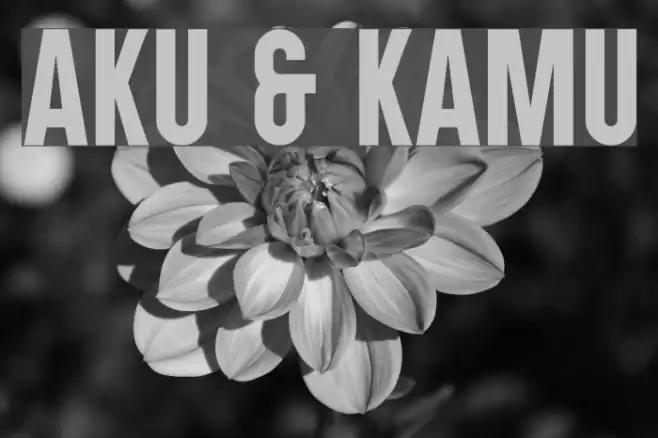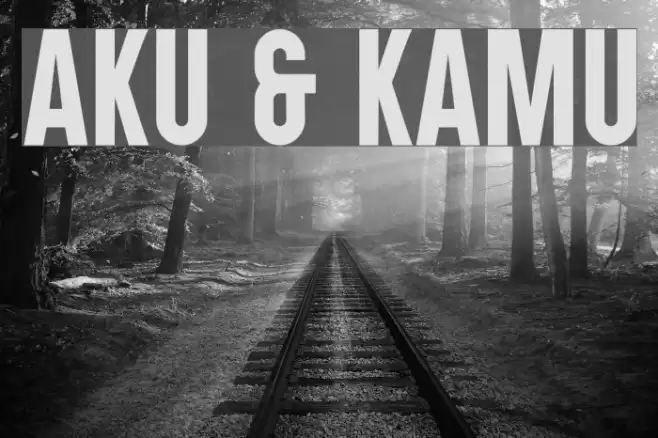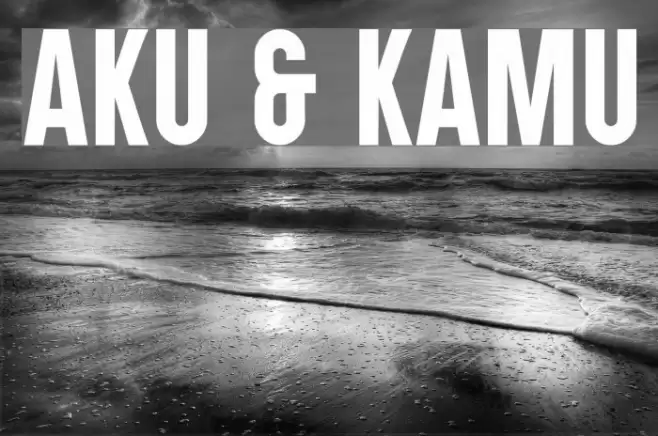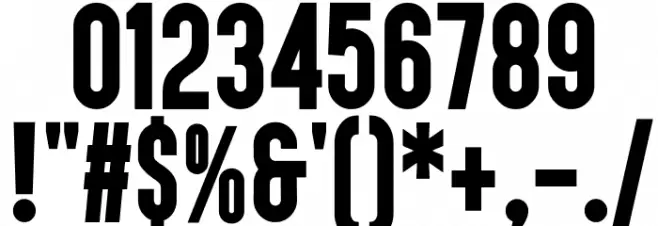
Aku & Kamu Font
Aku & Kamu Description
This font exhibits a bold and impactful style, characterized by thick, uniform strokes and a strong presence. The uppercase letters are prominent and assertive, making it ideal for attention-grabbing headlines. The numbers and special characters maintain the same boldness, ensuring consistency across all text elements. The design is straightforward, with no additional embellishments, emphasizing clarity and readability. This font is well-suited for projects that require a commanding and modern aesthetic.
A bold, impactful font with thick, uniform strokes for strong presence from Uncategorized fonts.
- Proposed Projects: Ideal for posters, headlines, advertisements, and branding materials that require a bold statement.